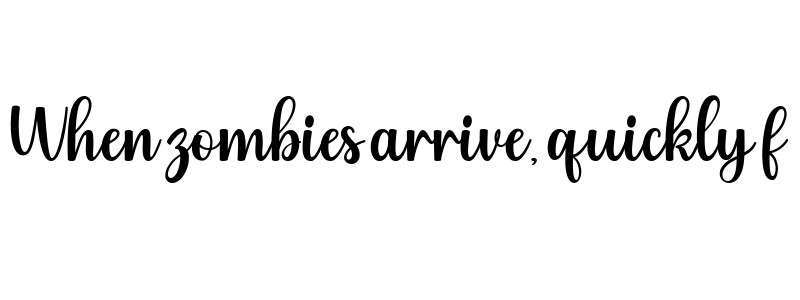
Zucchini Muffins FREE Font
Introducing Zucchini Muffins Script, a contemporary calligraphy masterpiece that effortlessly blends casual beauty with a dash of swash. This charming, regular-styled font breathes life into an array of creative projects. Its fluid elegance makes it an ideal choice for designing eye-catching logos, compelling product packaging, and romantic wedding invitations. Branding artifacts, persuasive headlines, distinctive signage, chic labels, and personalized signatures gain an elevated appeal with this font. It's also a perfect pick for crafting captivating book covers, statement-making posters, inspiring quotes, and so much more. Explore a new dimension of design potential with Zucchini Muffins Script!